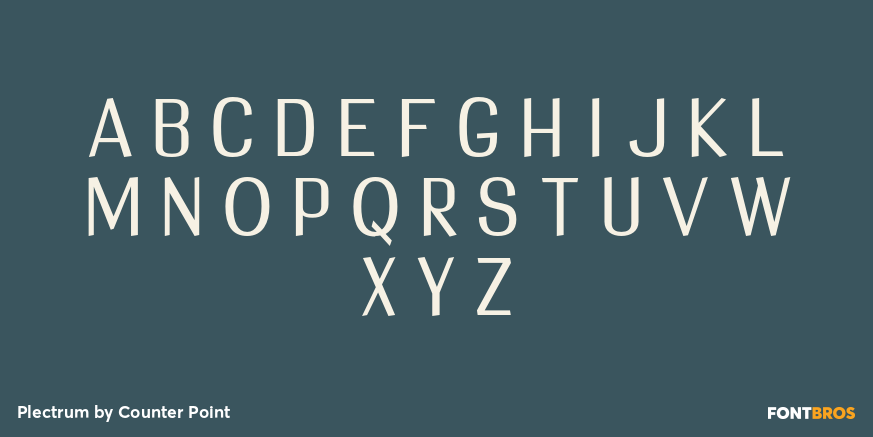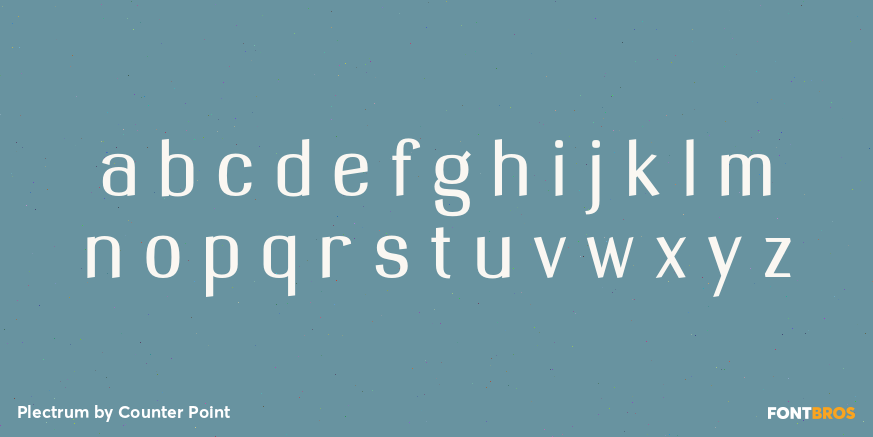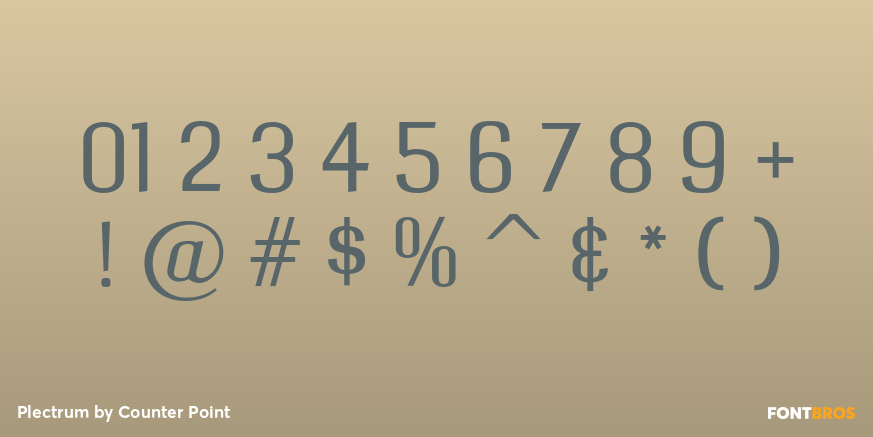
Plectrum
Font Family by Counter Point
As the first multi-font family designed for the CounterPoint font library, Plectrum offers designers and font lovers an alternative to the usual display style fonts of CounterPoint with a low key yet elegant sans serif family that can serve a variety of functions. Designed as a humanist style sans serif, the letters have variation in stroke weight. The italic faces have some variation in the letter design making them more of a true italic rather than simple oblique faces. The complete family consist of four weights: Regular, Italic, Bold and Bold Italic which can be purchased separately or as a complete package. The typeface has some unique features which add warmth to the design such as a slanted cross bar on the lowercase e and a large x-height. This is a solid, versatile family. Available in OpenType and contains support for Latin based and Eastern European languages.